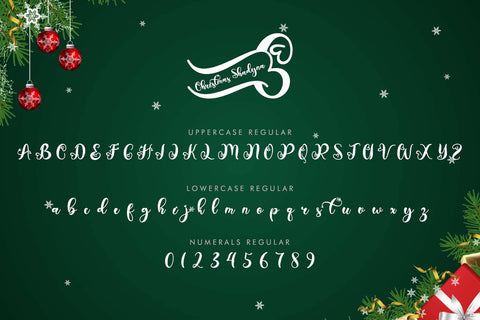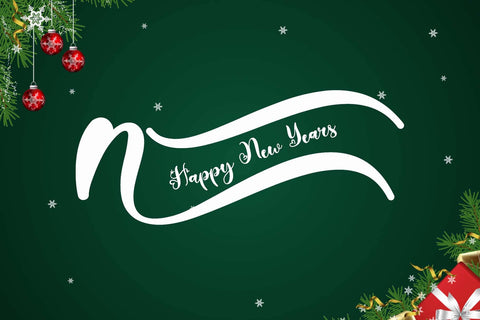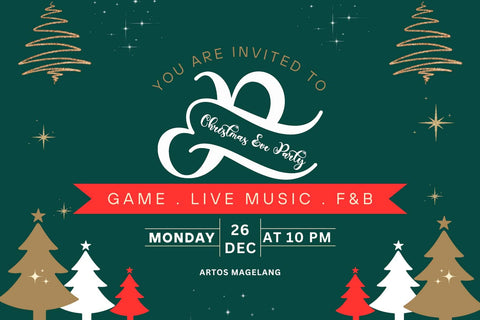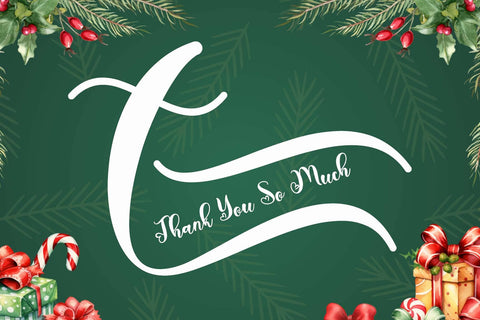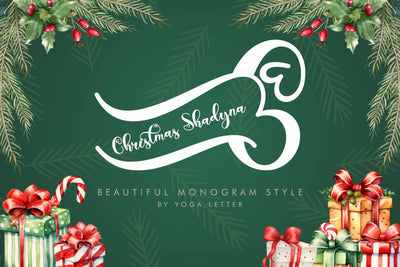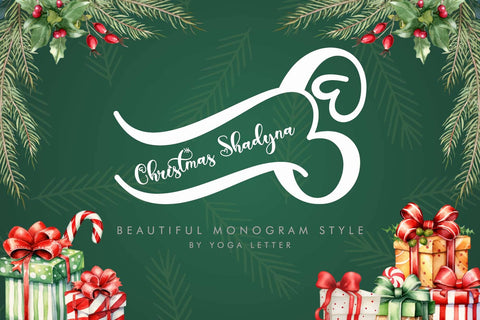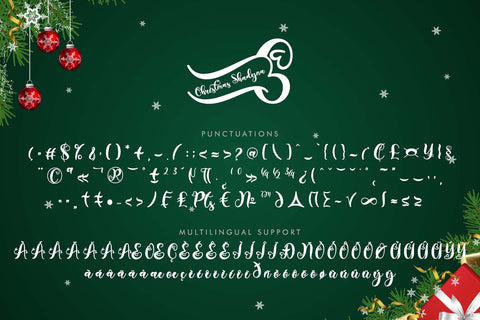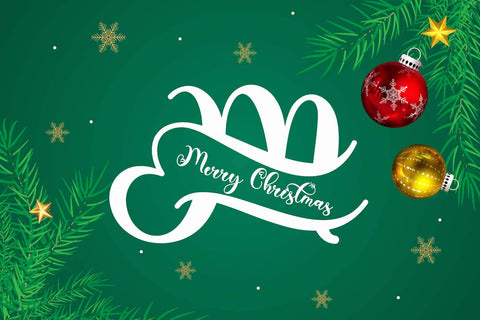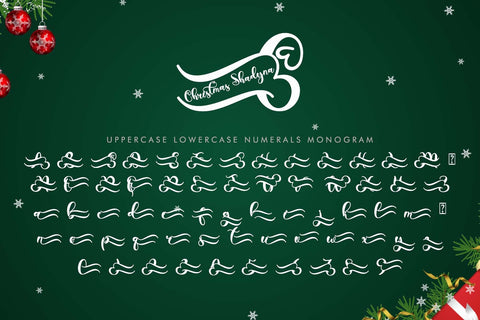
Christmas Shadyna
"Christmas Shadyna" is a handwritten font with a beautiful monogram combination. It features monograms, uppercase and lowercase letters, numerals, punctuations, and multilingual support. It's perfect for invitations, Christmas, Halloween, and Thanksgiving, posters, prints, banners, branding, logos, stickers, and more.